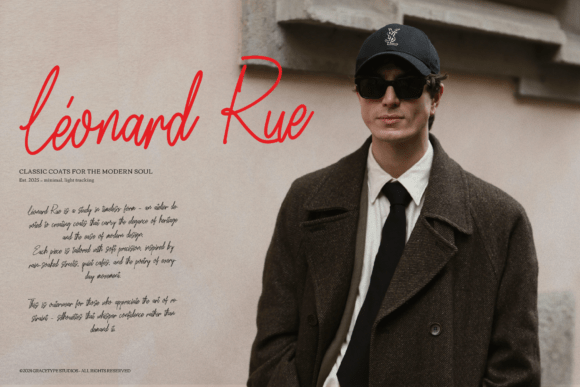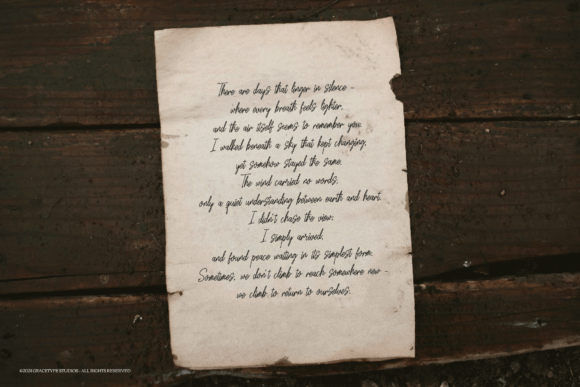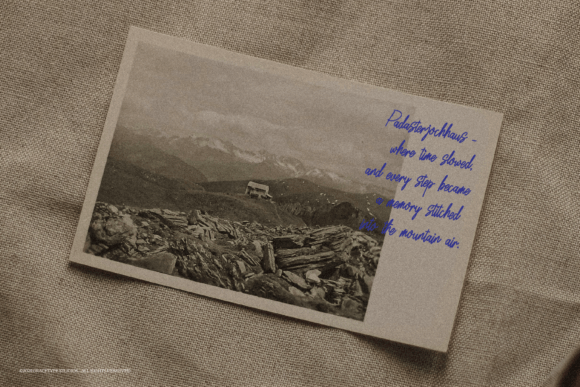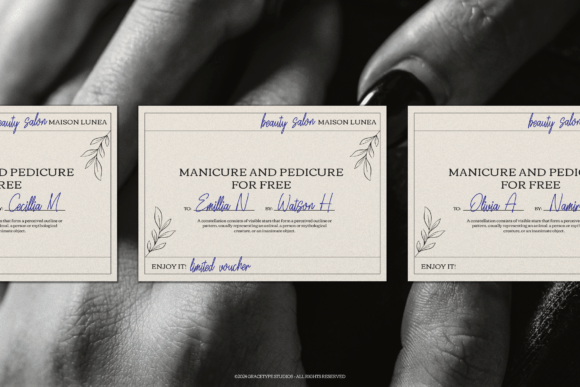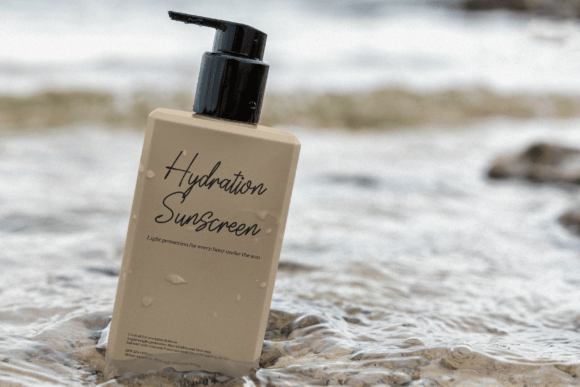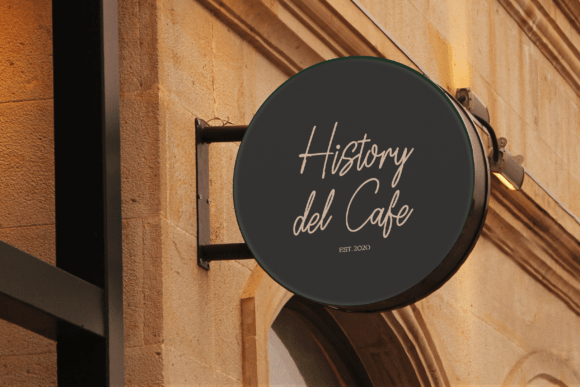
Introduction to Lingered Amaya Font
Lingered Amaya is a refined handwritten script font that combines the elegance of cursive lettering with the fluidity of modern calligraphy.
Each glyph is thoughtfully drawn with smooth entry and exit strokes, resulting in a natural writing rhythm ideal for invitations, quotes, logos, and lifestyle branding The font features slightly condensed letterforms with a gentle slant, maintaining a balance between decorative flair and functional legibility.